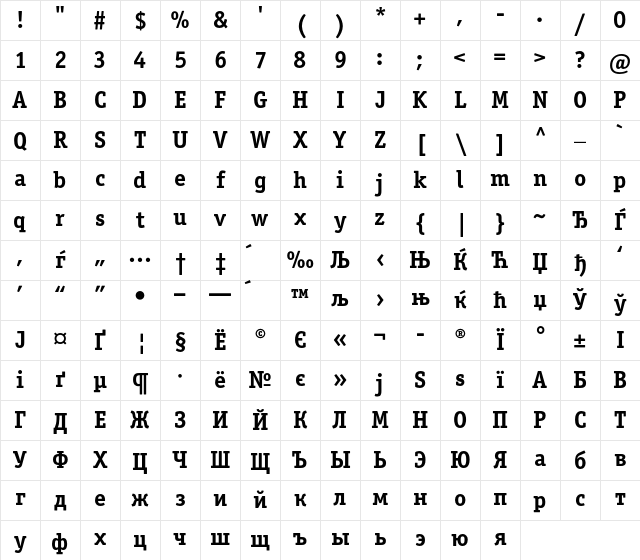
OfficinaSerifC Regular
Design Context for OfficinaSerifC
OfficinaSerifC carries the refined structure of traditional serif typography, with bracketed terminals and considered proportions that communicate credibility and craft.
Pro Tip: Use OfficinaSerifC for editorial body copy and considered headline work. Pair with a neutral sans for UI elements or captions to create a classic hierarchy.